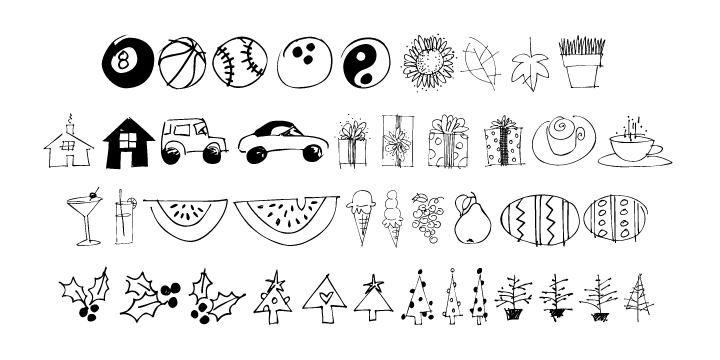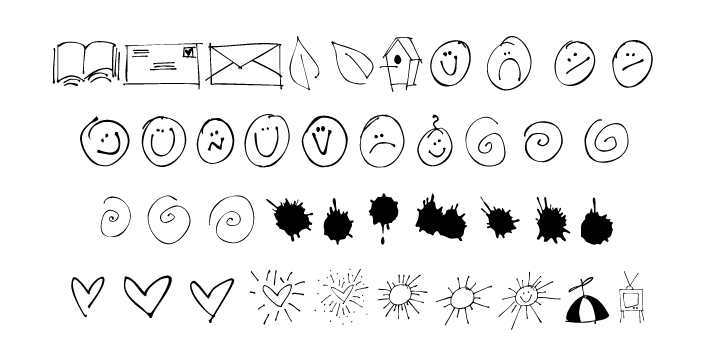
Doodles is a dingbat font published by Outside the Line.
Doodles received honorable mention in U&lc’s First Annual Type Design Competition in the Picture Category. Inspiration came from many long hours logged in corporate strategic planning meetings.